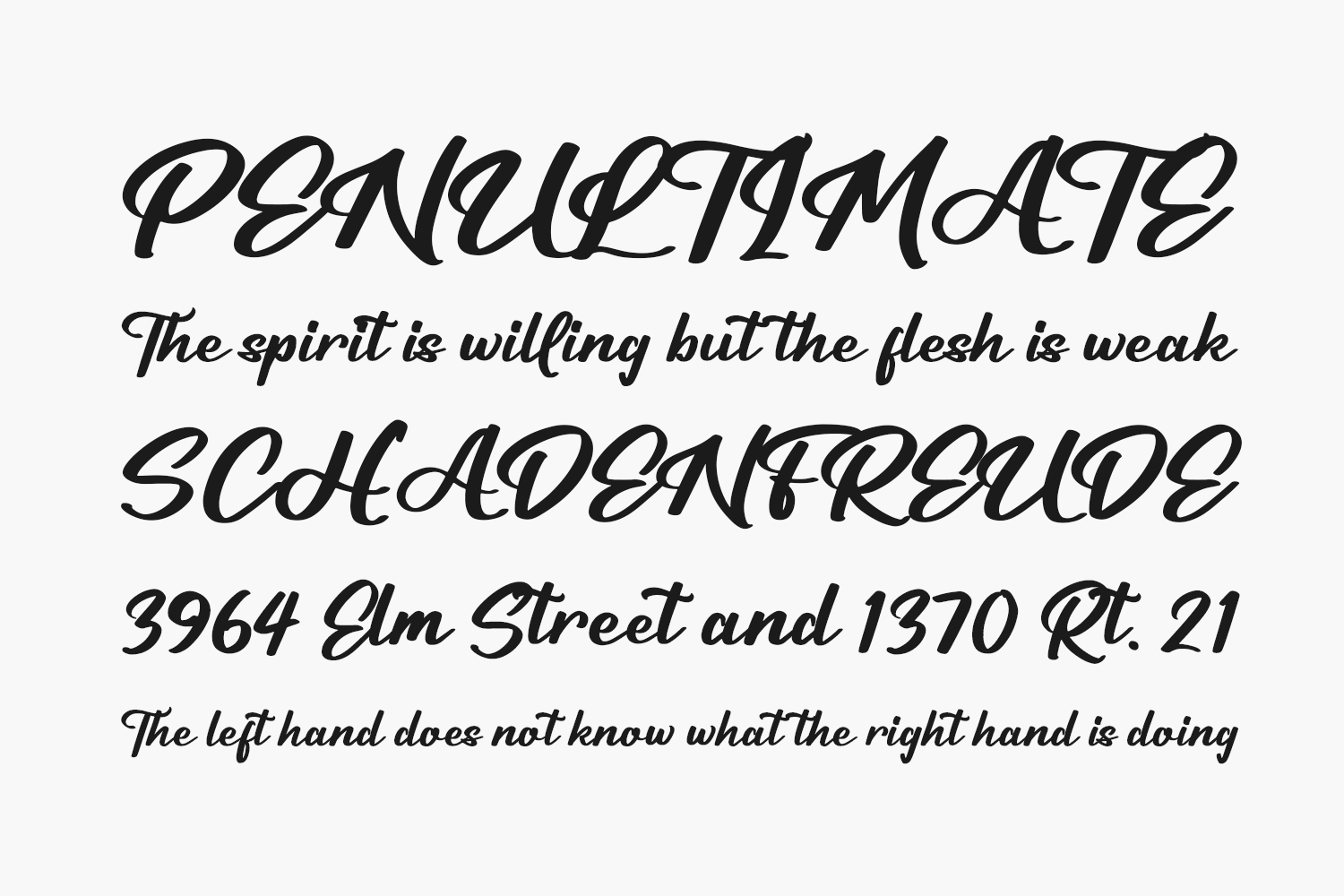
Kamehaya Bintang Free Font is a gorgeous and bold handwritten font, crafted to give your headlines and logotype projects a stylish touch. This font reads as strong, confident, and dynamic and can add tons of nostalgic character to your designs.
Designed by Integritype Studio